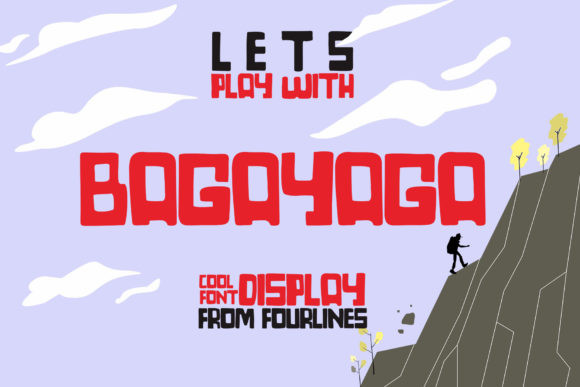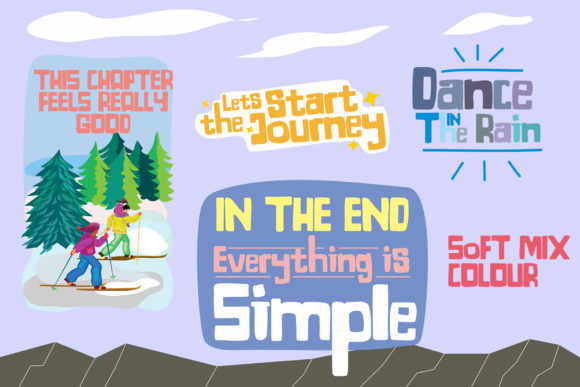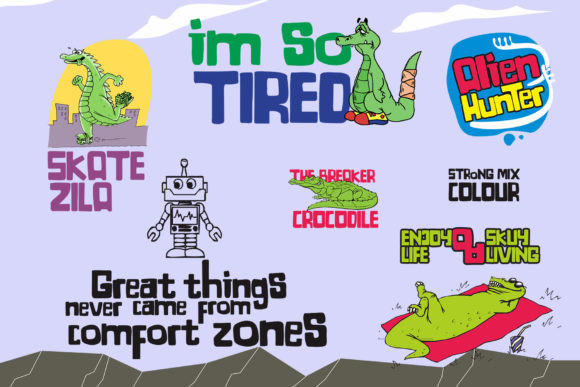
Bagayaga Font
Bagaya is an unique and strong display font, that’s great for modern-looking crafts. It’s playful, but also has a distinct personal charm to it.